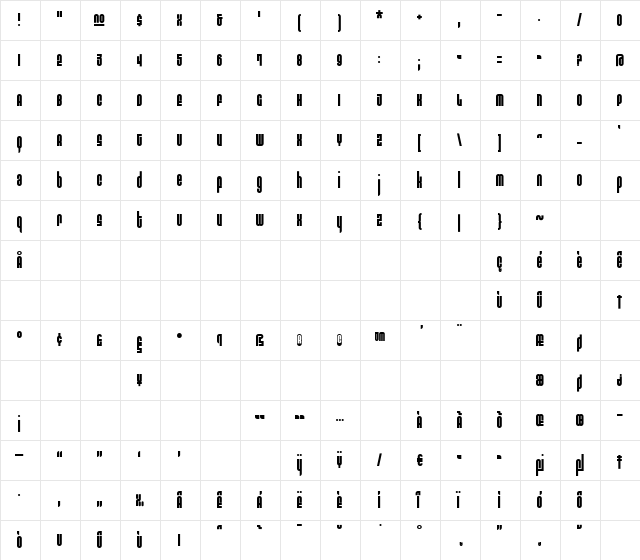
Saturate Standard
Standard · theTYPEfetish/Michael Wallner Michael Wallner ·
Foundry theTYPEfetish/Michael Wallner
DesignerMichael Wallner
Design Context for Saturate Typeface
Saturate is a composed and adaptable typeface that performs quietly and consistently across a wide range of design contexts.